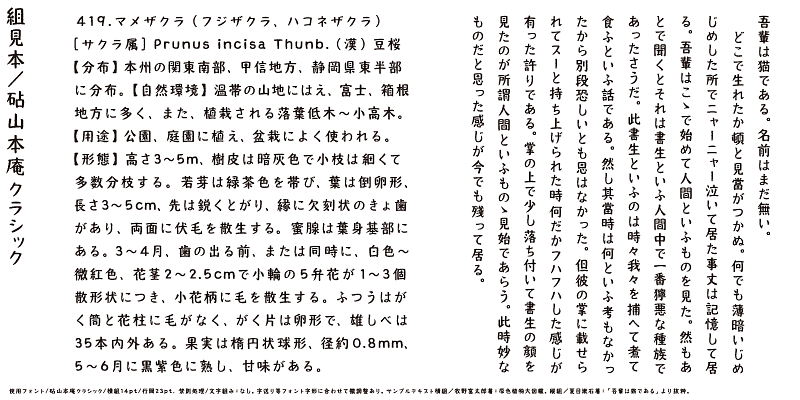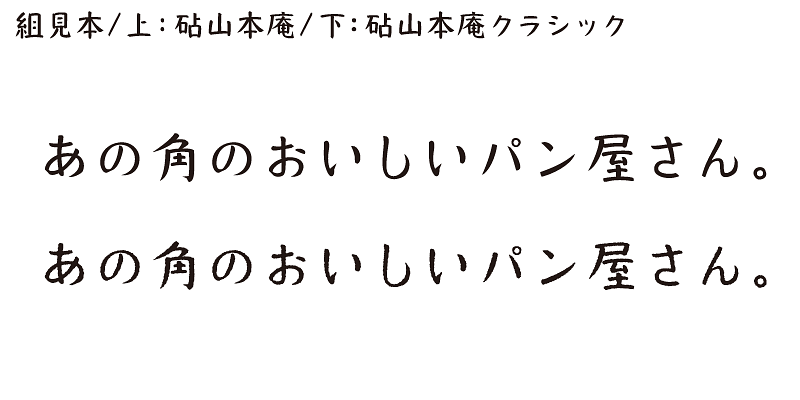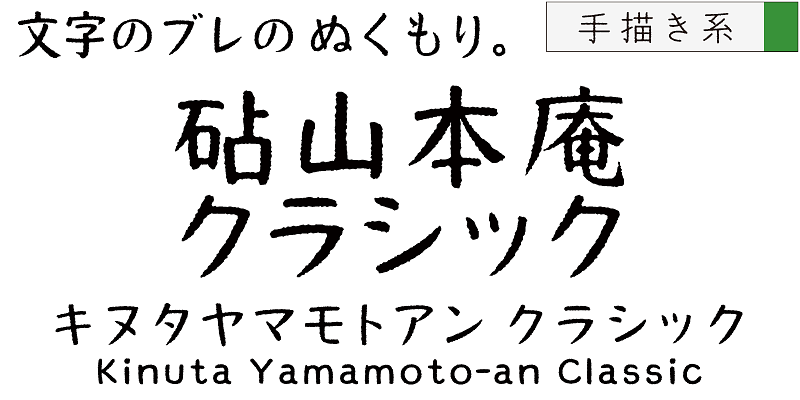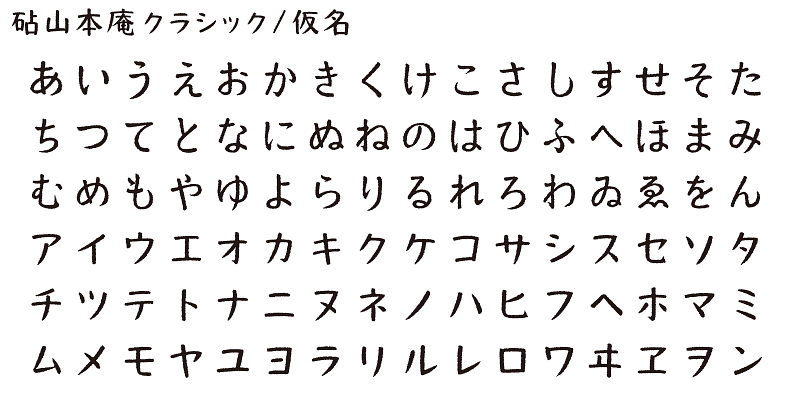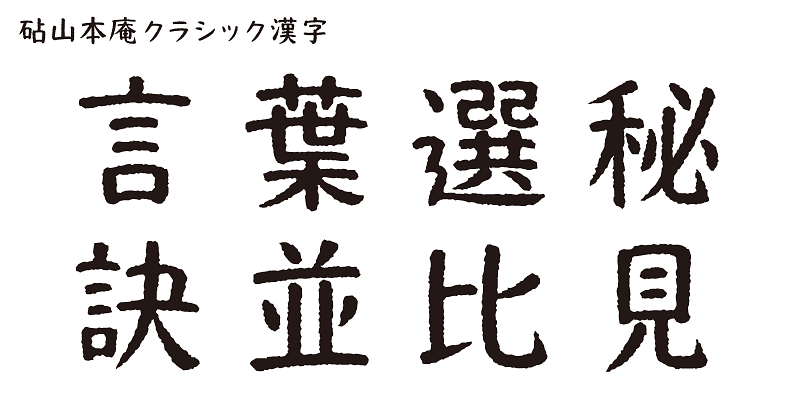
This version of Yamamotoan has an ink bleeding effect that lends a classical flavor.
One characteristic of the Japanese language is that it has kana syllabic characters. Kana characters were invented in Japan to represent sounds in Japanese and translate texts imported from China into Japanese. Kana characters are needed to create Japanese words and expressions from kanji/Chinese ideographic characters. While there may be ambiguities, these words and expressions exhibit the warmth and gentleness of the lives of people living in the small and densely populated land of Japan.
Kinuta Font Factory’s believes that kana characters are the origin of written words in Japanese, and we think that improving kana characters will make Japanese text more attractive. On average, 60% of Japanese text consists of kana characters – changing the shape of these characters changes the visual appearance of the text. The possibilities for typographic expression using simple, dynamic and curvilinear kana characters are vast, and the richness of Japanese text depends on kana characters. This is the reason why Kinuta Font Factory offers many variations of kana typefaces.